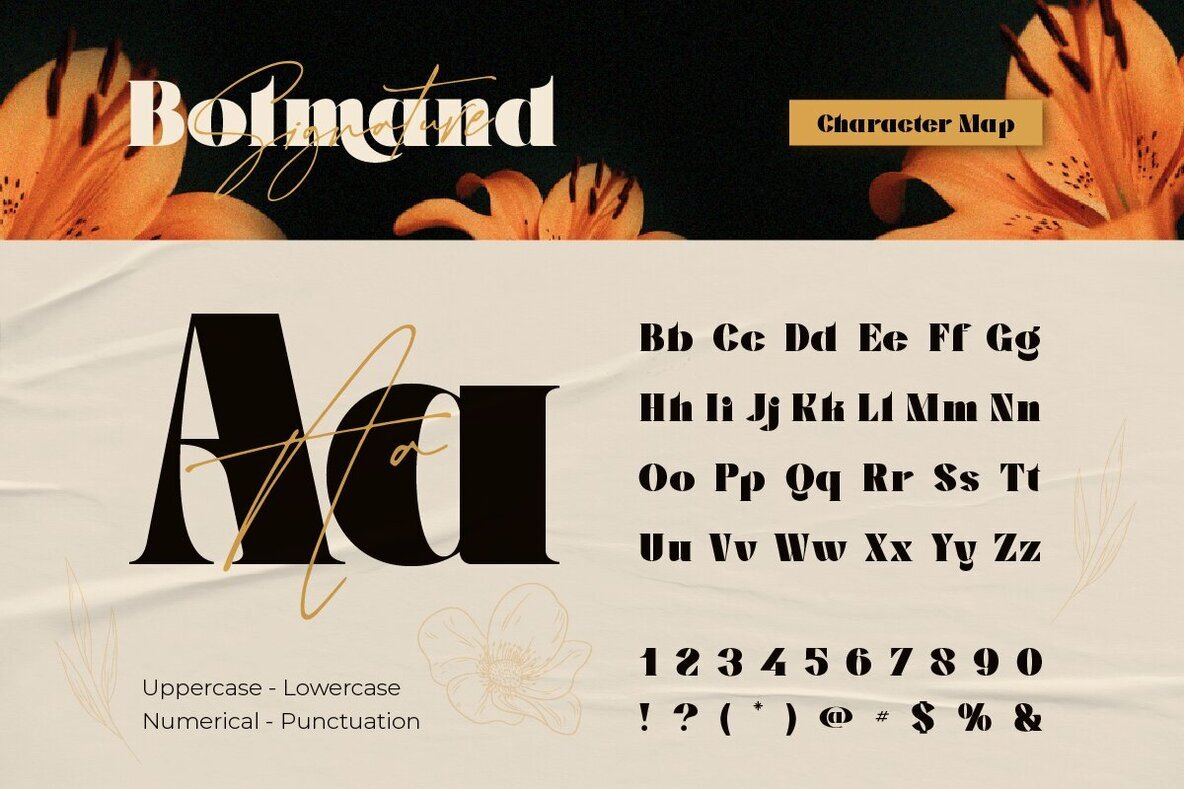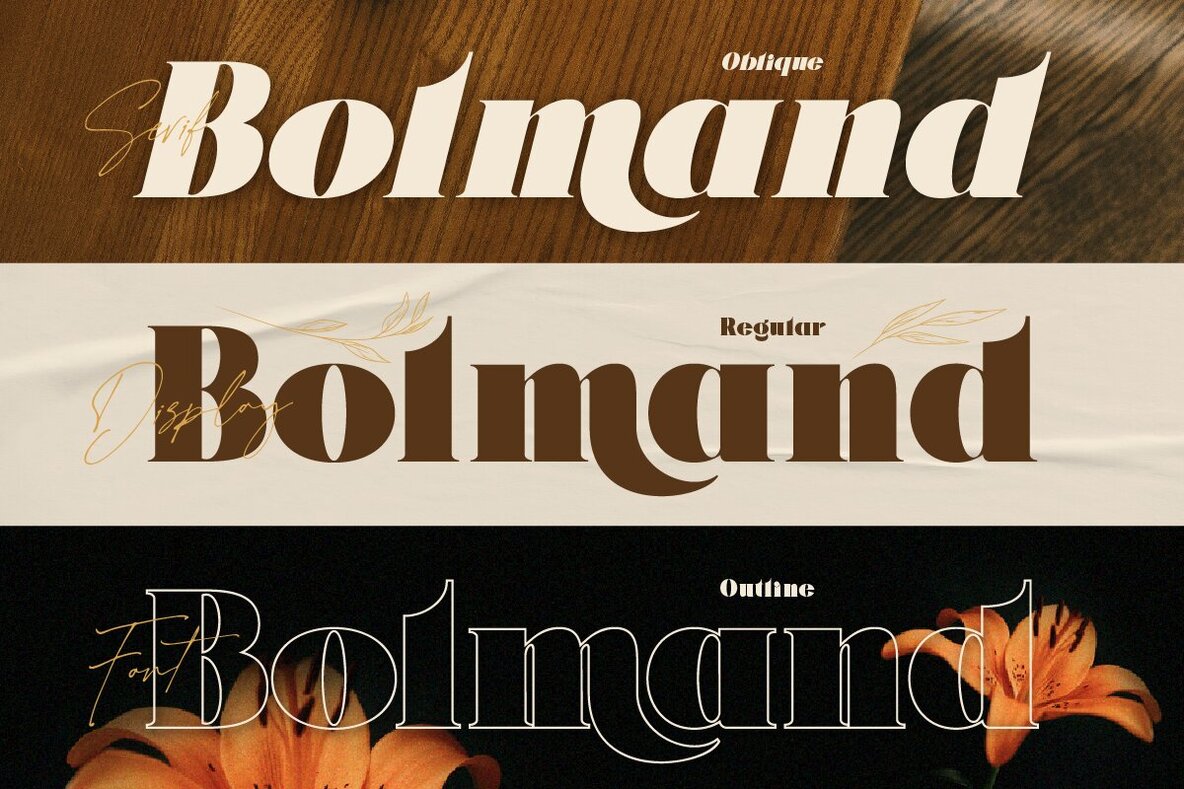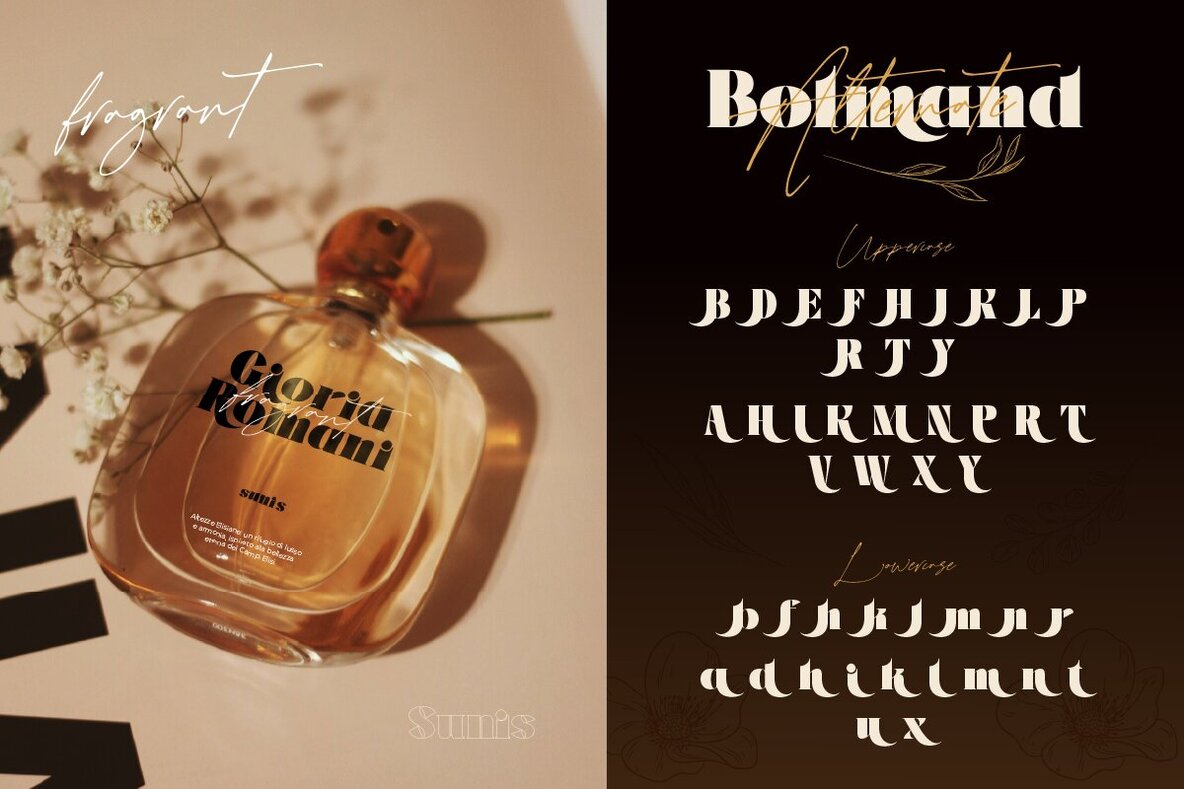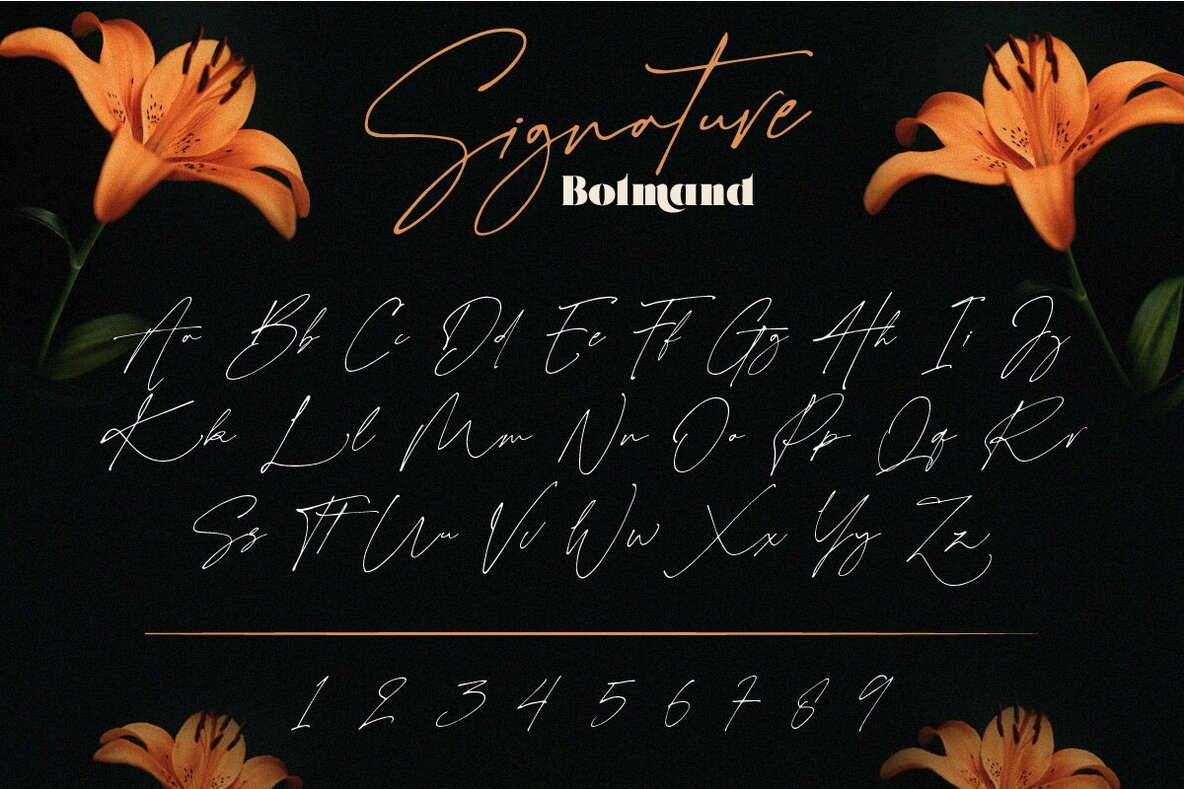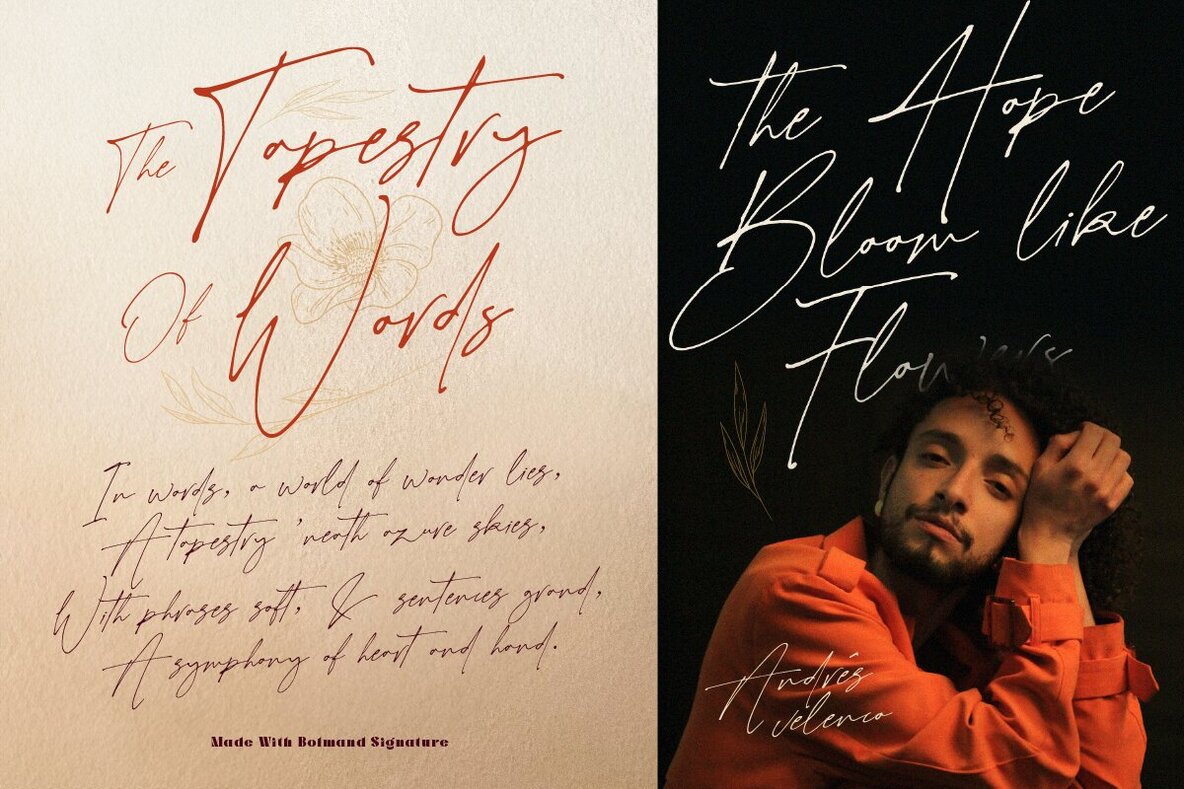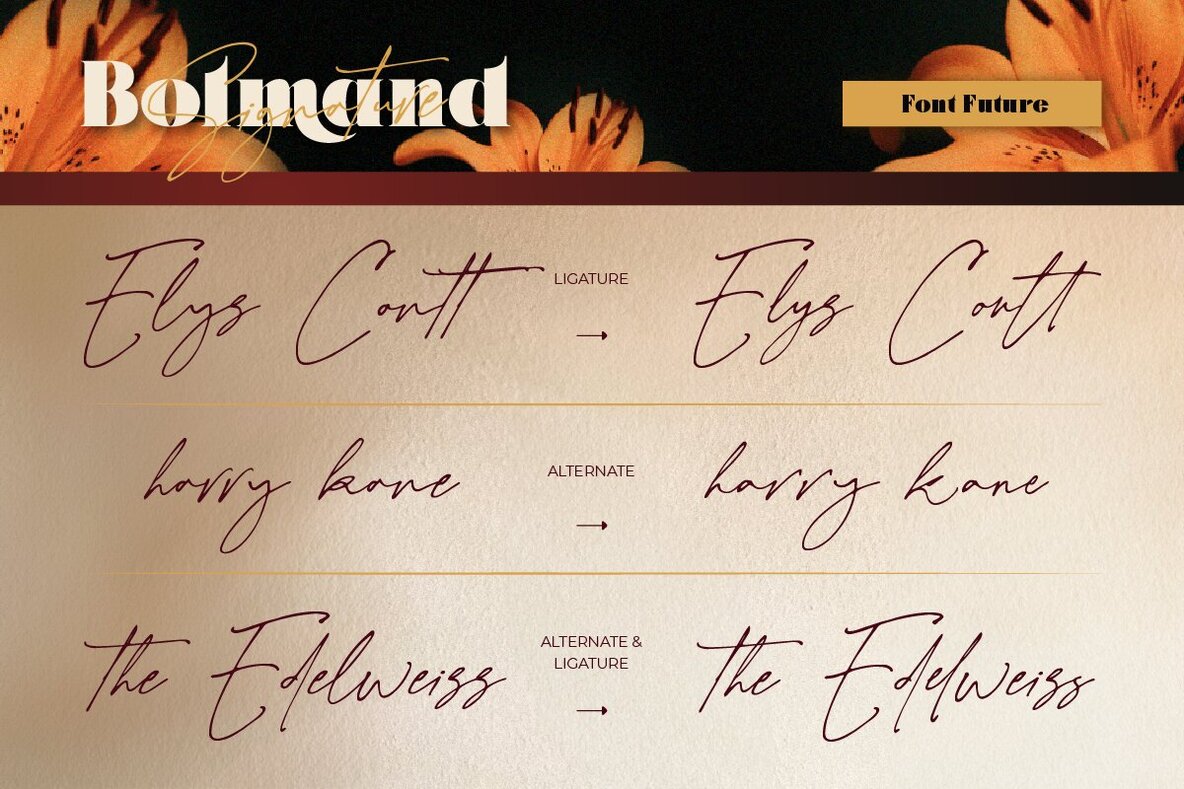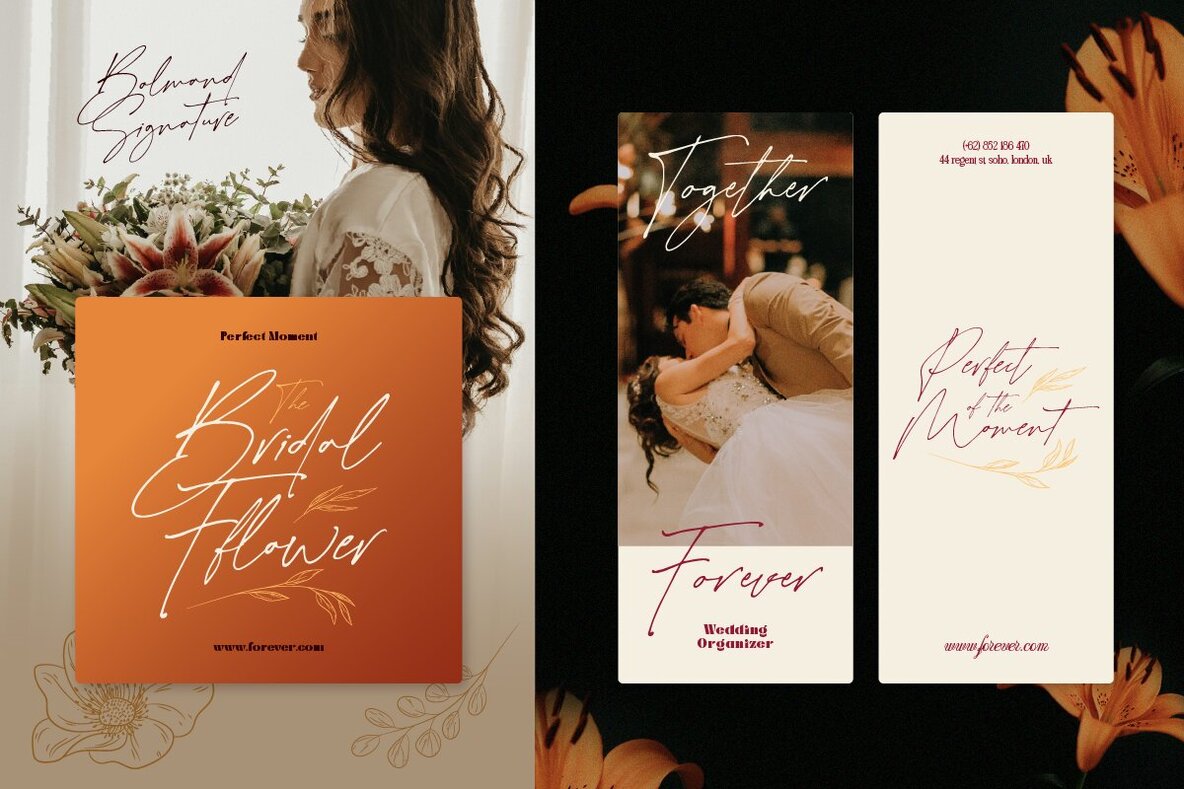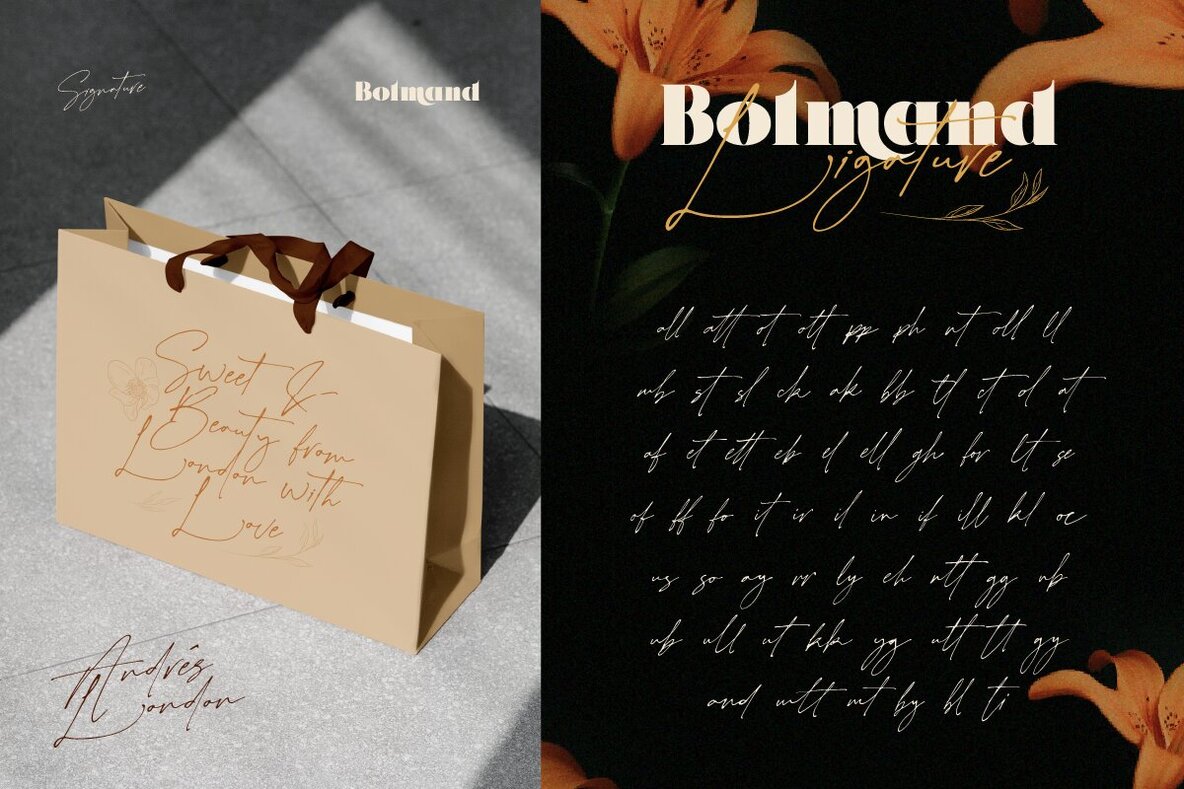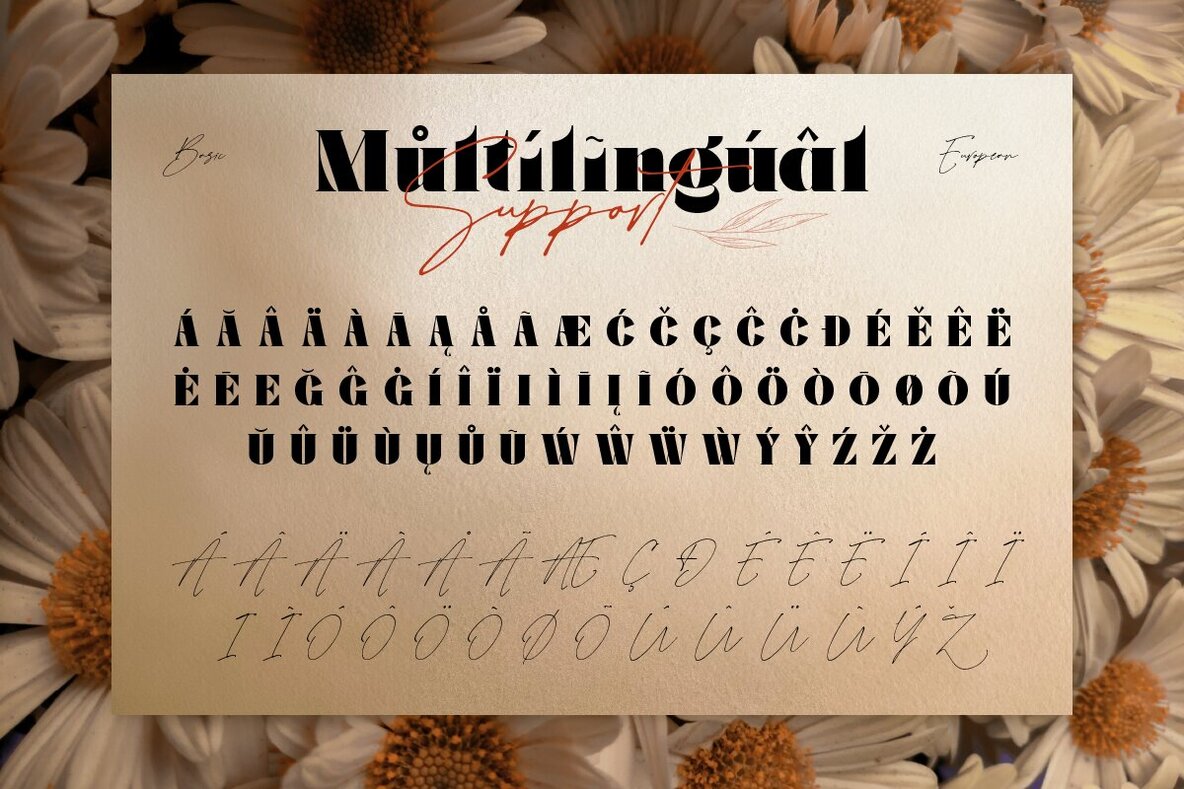
Bolmand Font
Bolmand Regular
Bolmand Oblique
Bolmand Outline
Bolmand Signature
Introducing Bolmand Signature Duo Family, a perfect blend of bold elegance and handwritten charm, Bolmand Signature is a sophisticated duo font featuring display serif and a signature script that complement each other beautifully. With three serif styles: regular, Oblique and Outline also include ligatures and alternates, giving you creative flexibility and typography aesthetics. Designed with precision, Bolmand brings a balance of modern and classic. Perfect for branding, logos, packaging, editorial design, wedding invitations, and more. Features: